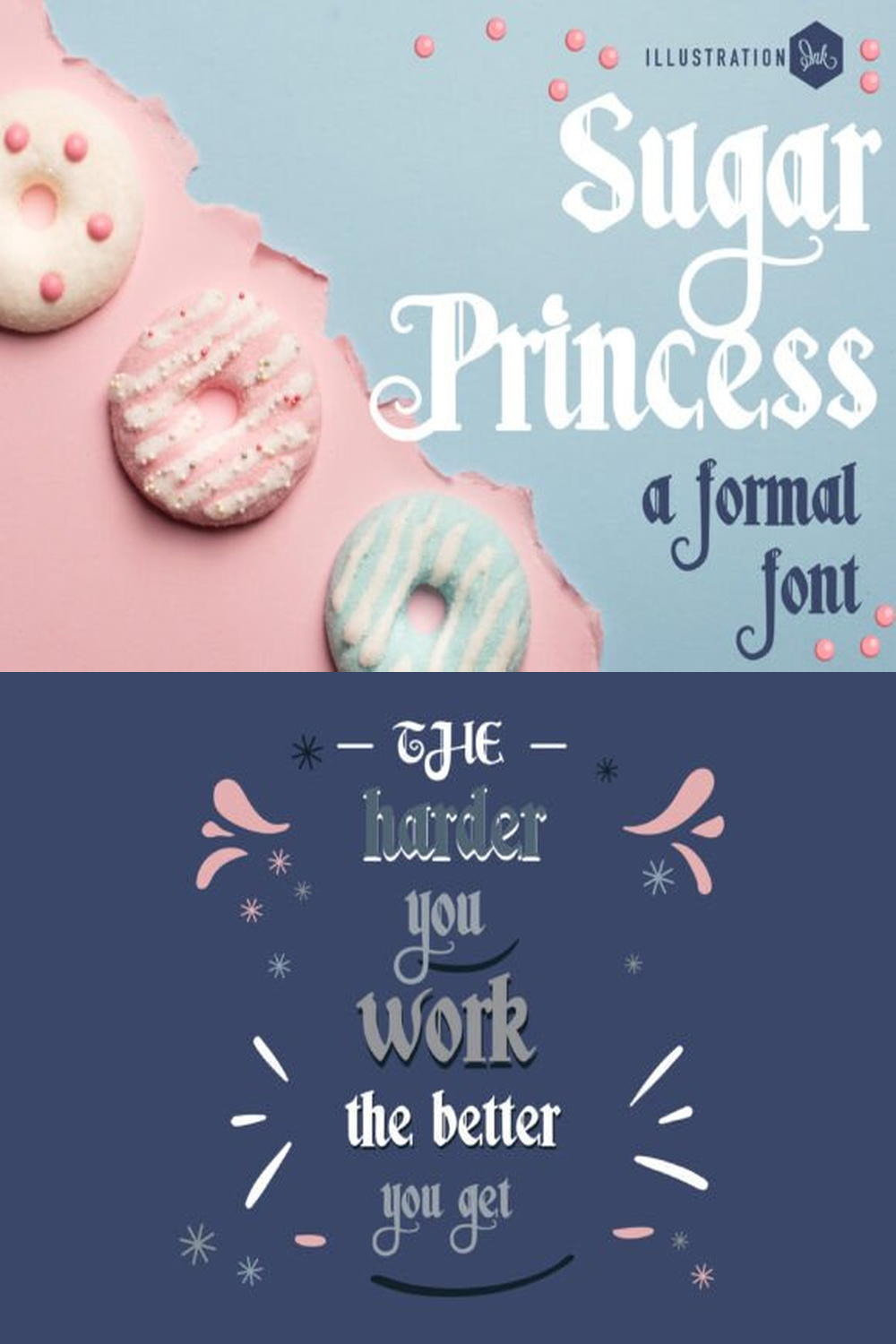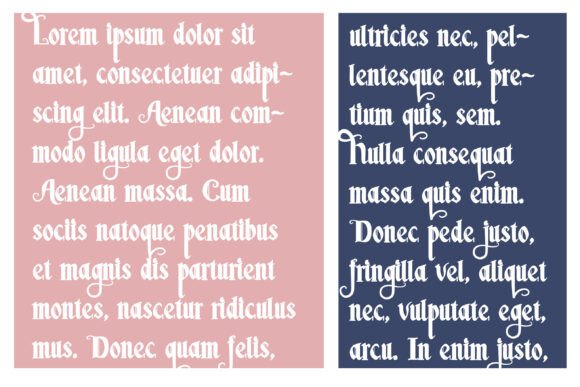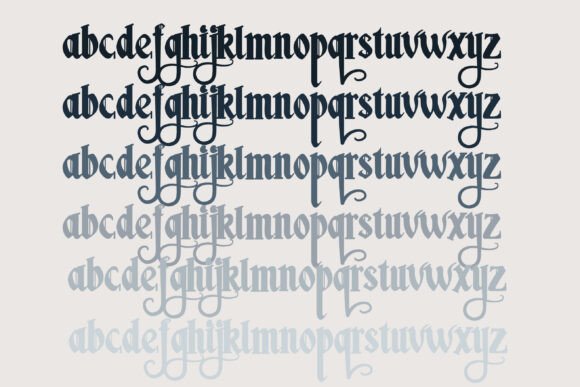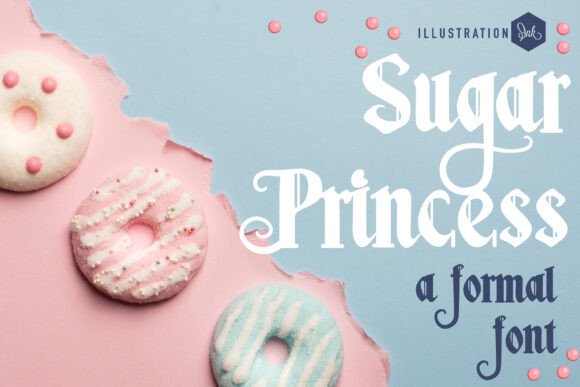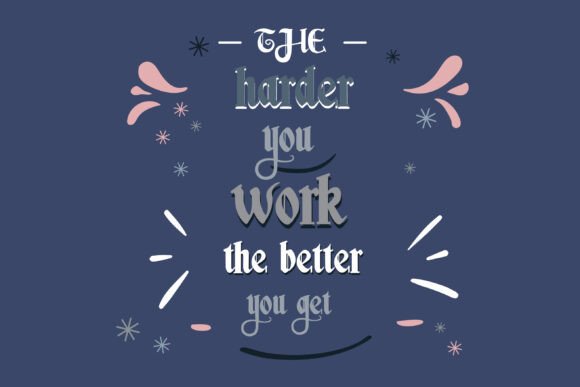
Sugar Princess Font
About the Sugar Princess Font
Make a bold statement with Sugar Princess Font, a powerful and memorable font. This hand-crafted font is a beautiful calligraphy font with big loops.